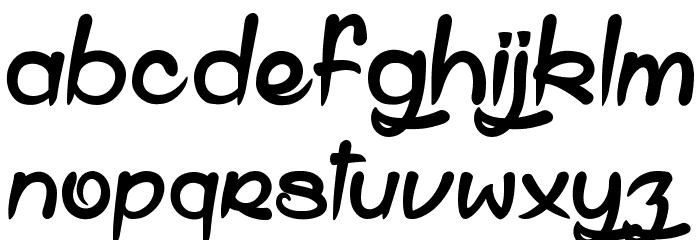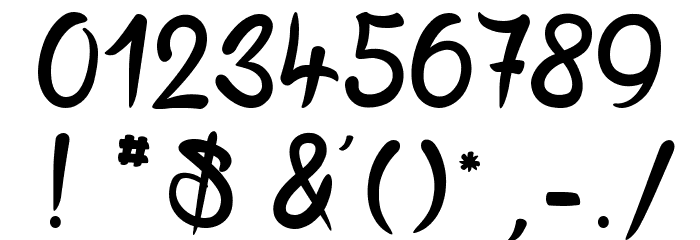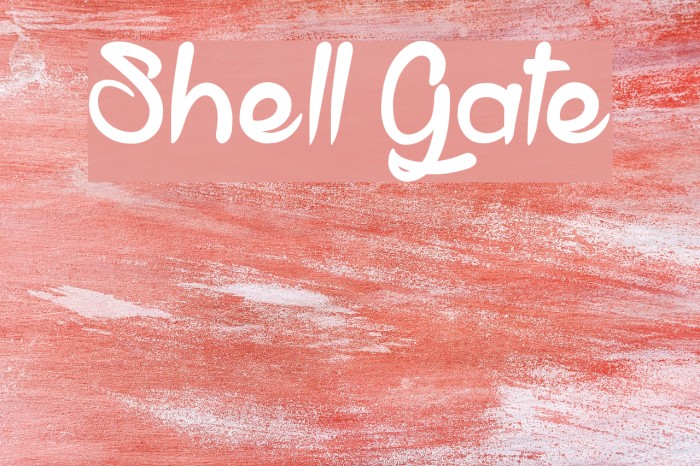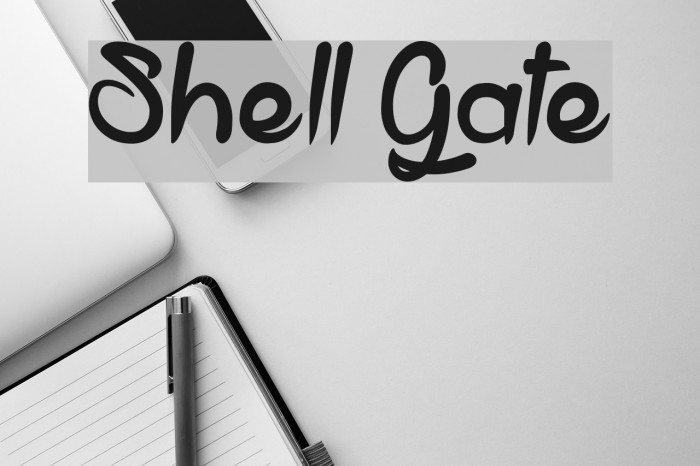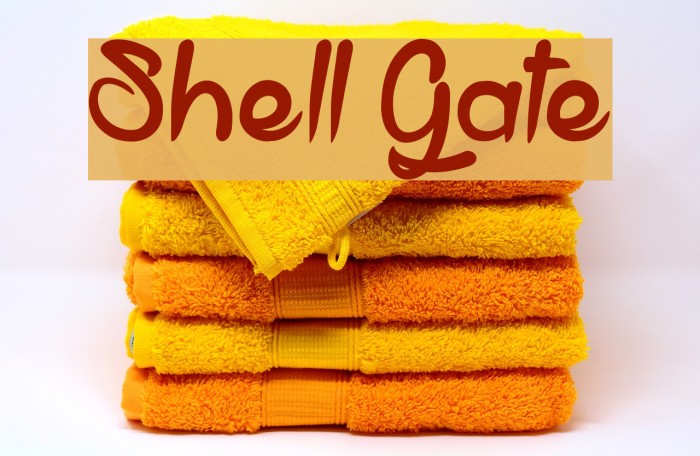
Shell Gate Font
This font exhibits a playful and energetic style, characterized by its bold, flowing strokes and slightly irregular letterforms that give it a handwritten feel. The uppercase letters are tall and slightly narrow, with distinctive loops and curves that add a sense of movement. The lowercase letters maintain a consistent style, with rounded edges and a casual, friendly appearance. Numbers and special characters are designed to match the overall aesthetic, ensuring a cohesive look across all text. The font's unique style makes it stand out, while still being legible and versatile.
A playful, handwritten-style font with bold, flowing strokes and a casual appearance.
- Proposed Projects: Ideal for creative projects such as greeting cards, invitations, posters, and branding materials that require a personal touch.